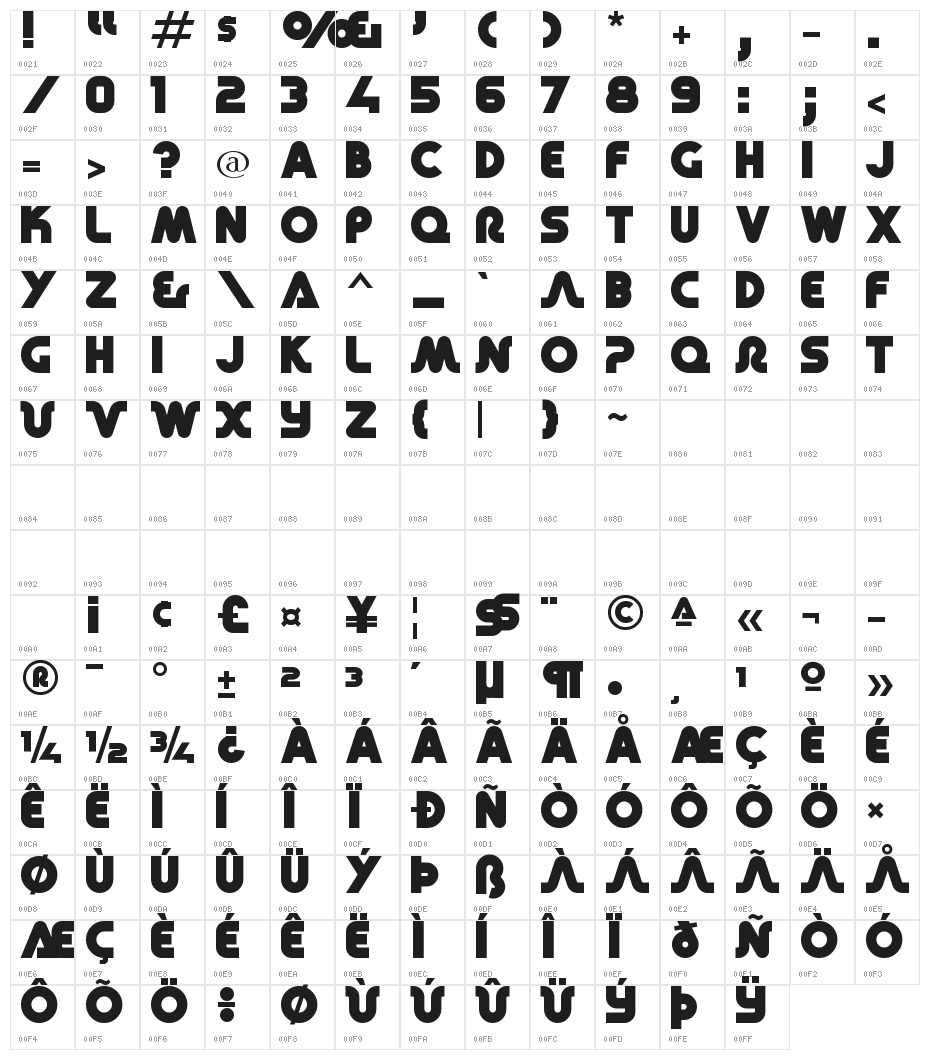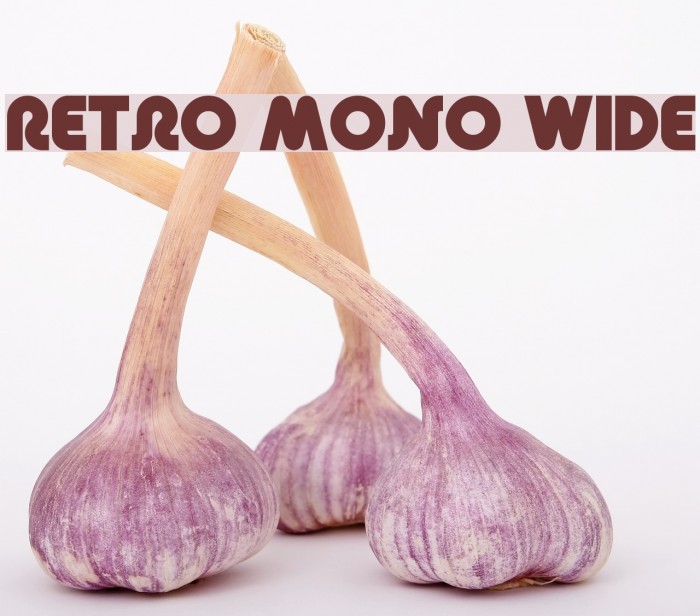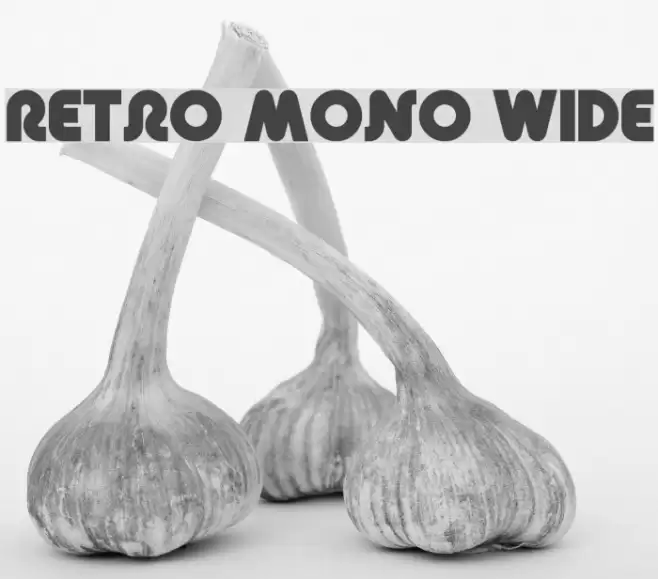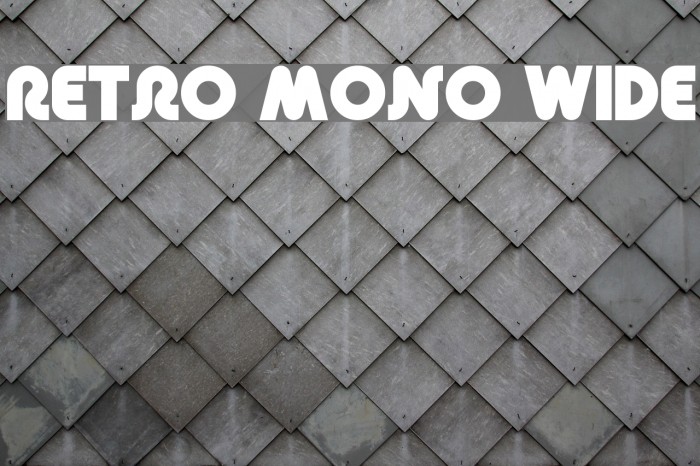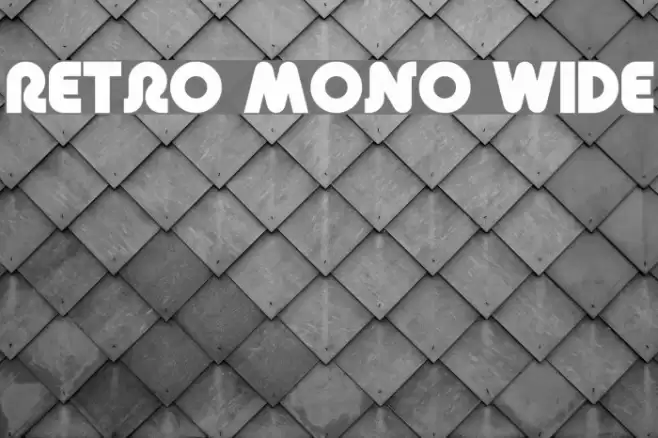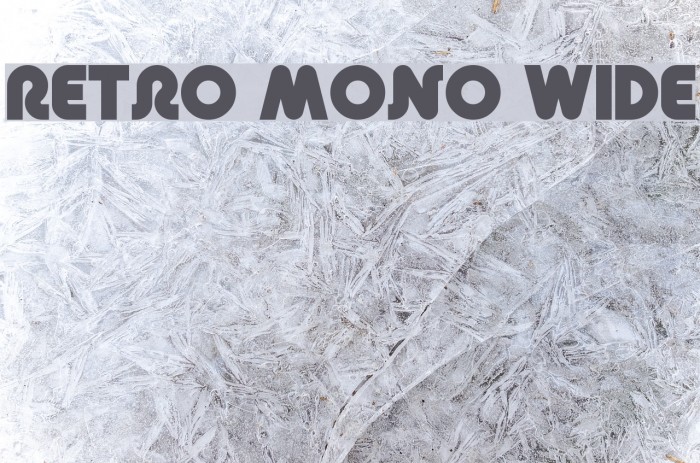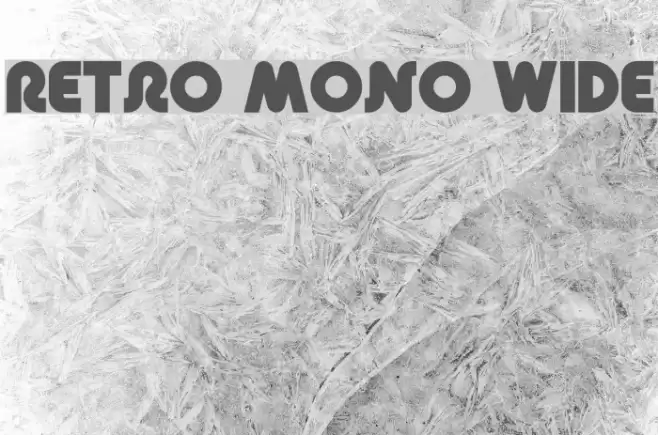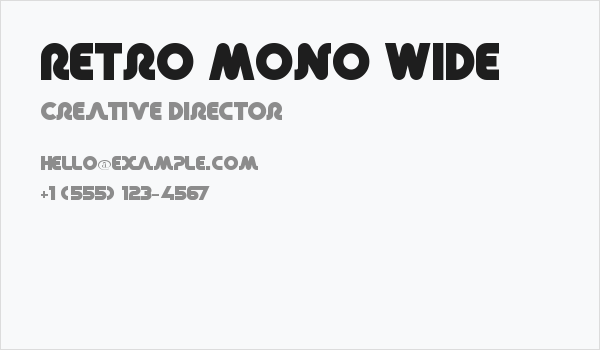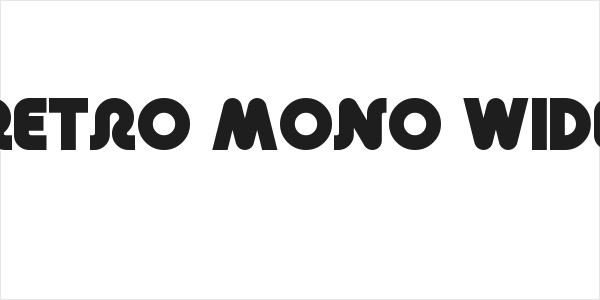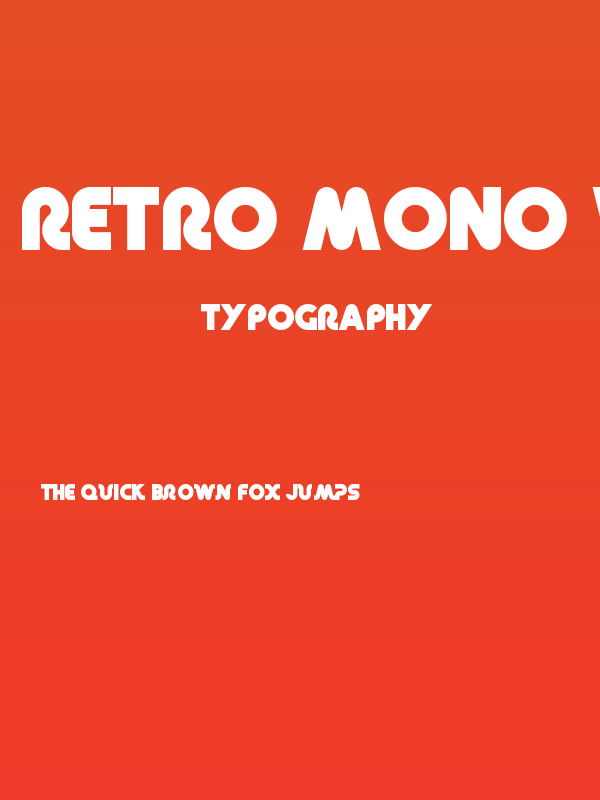
Retro Mono Wide Font
Retro Mono Wide Description
This font features a bold, geometric style with a distinctly retro flair. The characters are wide and monospaced, giving a uniform appearance across all letters and numbers. The design includes rounded edges and a consistent stroke width, contributing to its bold and impactful look. The uppercase and lowercase letters maintain a cohesive style, while the numerals and special characters are designed to match the overall aesthetic. This font's unique style makes it stand out, ideal for projects that require a vintage or retro touch.
| Overall Style | Retro |
| Proposed Projects | Ideal for retro-themed posters, branding, and logo design, as well as any project needing a vintage aesthetic. |